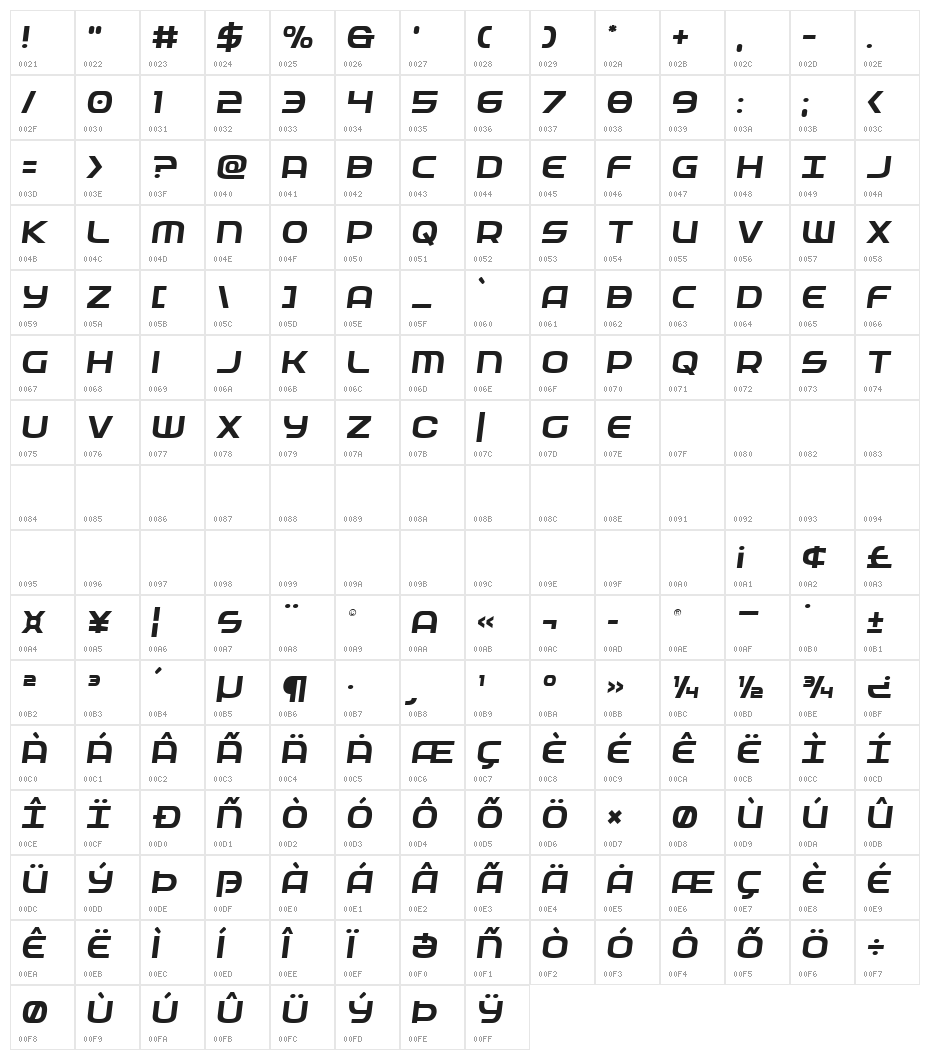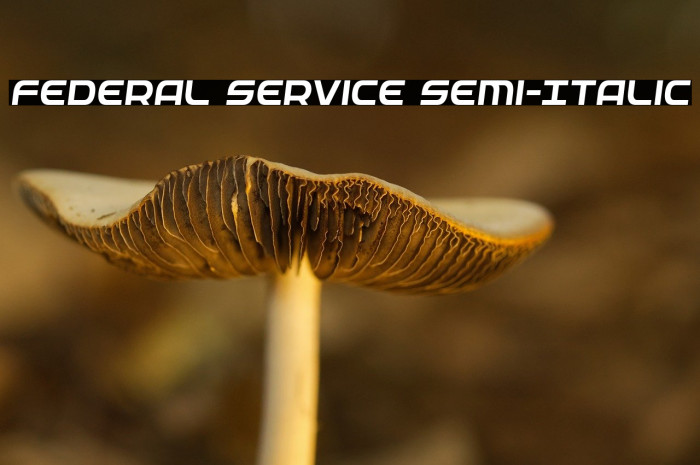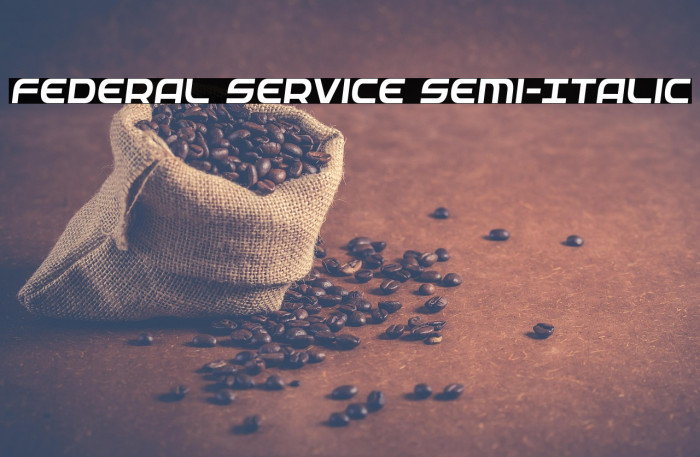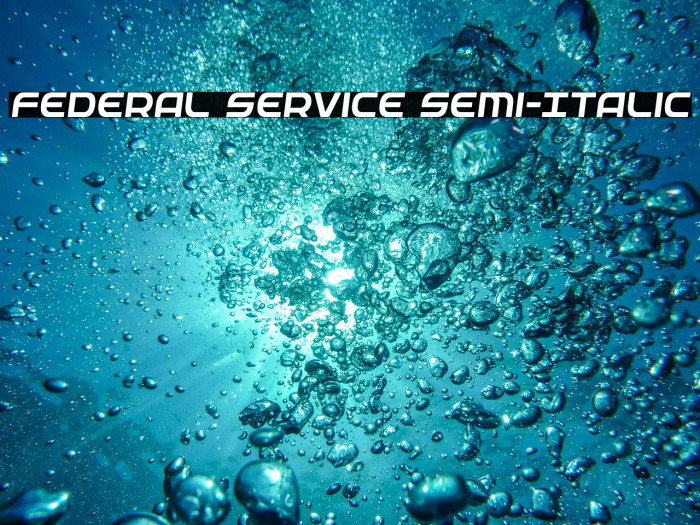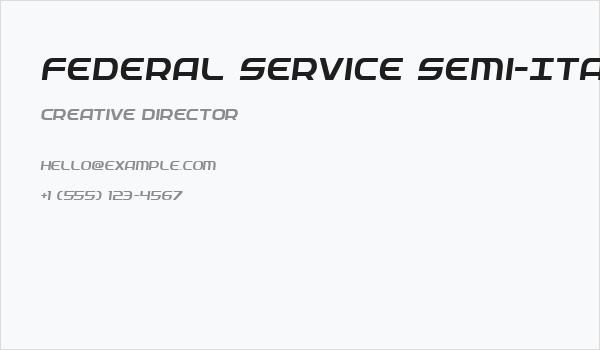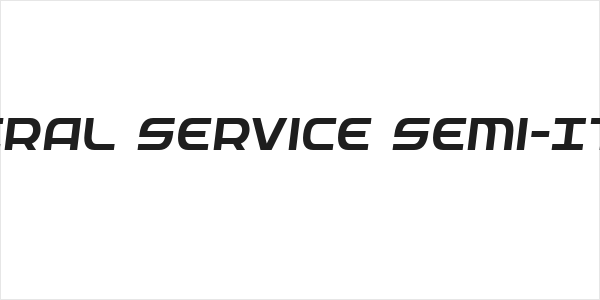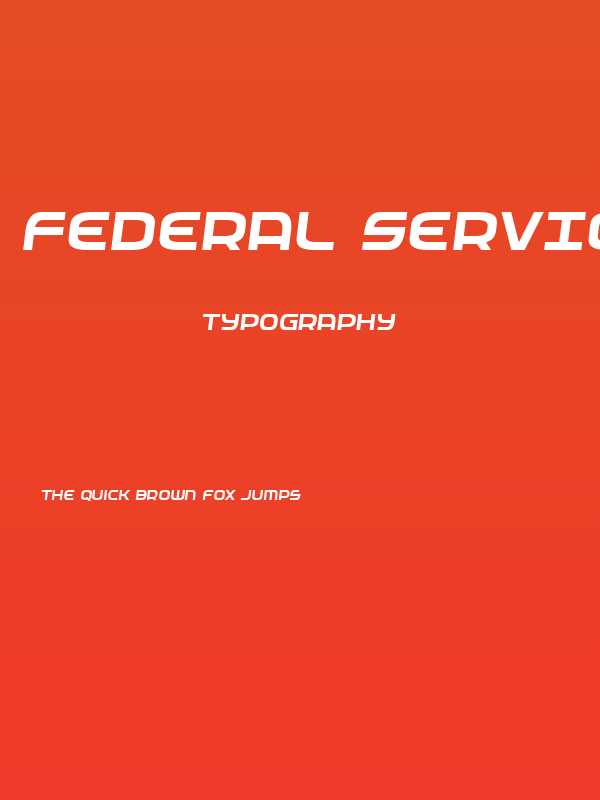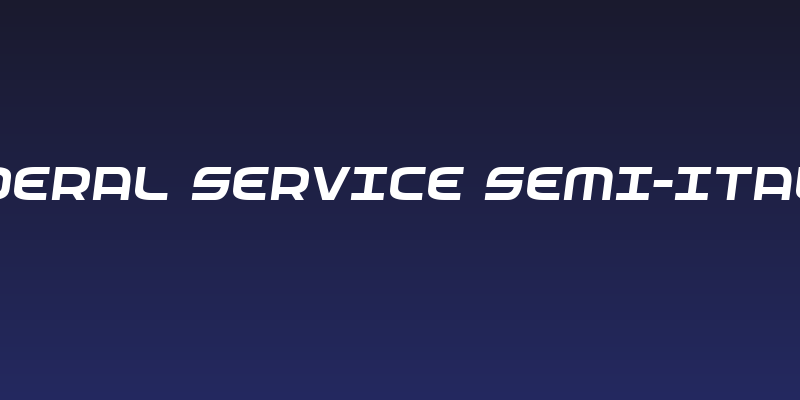
Federal Service Semi-Italic Font
Federal Service Semi-Italic Description
This font features a sleek, modern design with a semi-italic slant that adds a dynamic and forward-moving feel. The characters are bold and slightly condensed, giving a strong presence while maintaining readability. The strokes are consistent in weight, providing a uniform appearance across all characters. The font's geometric shapes and clean lines make it suitable for contemporary design projects. Its distinct style is enhanced by the subtle curves and angles, creating a sense of motion and energy.
| Proposed Projects | Ideal for branding, advertising, sports team logos, and modern web design. |